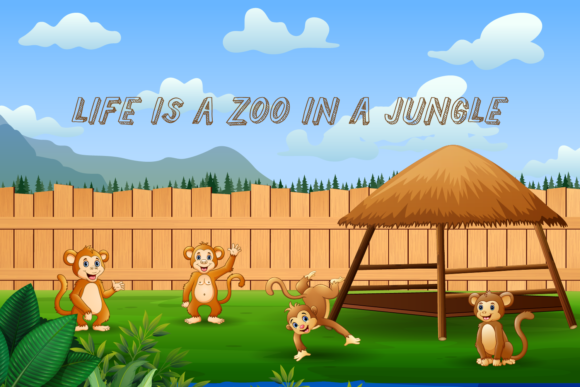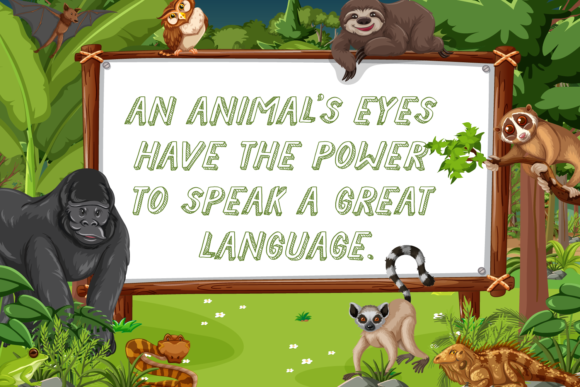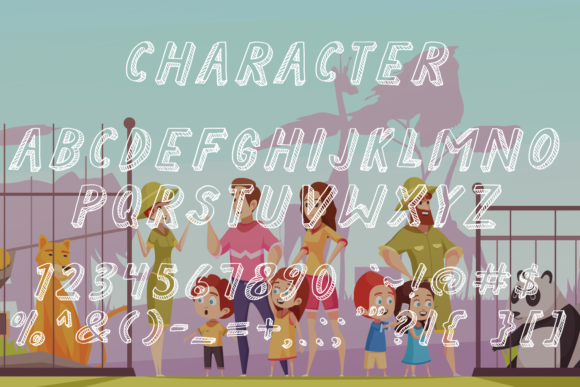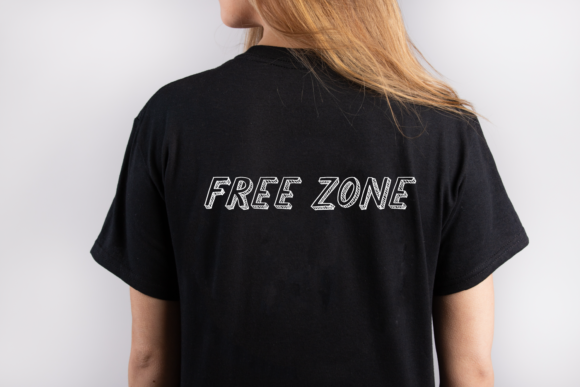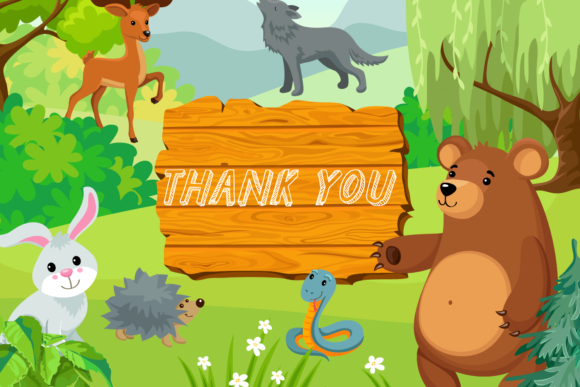
Introduction to City Zoo Font
City zoo is a bold and chunky lettered display font.
Get creative with its childlike playfulness, and use it to brighten up any kids and school project .
Key Features of City Zoo Font
Why Choose City Zoo Font?